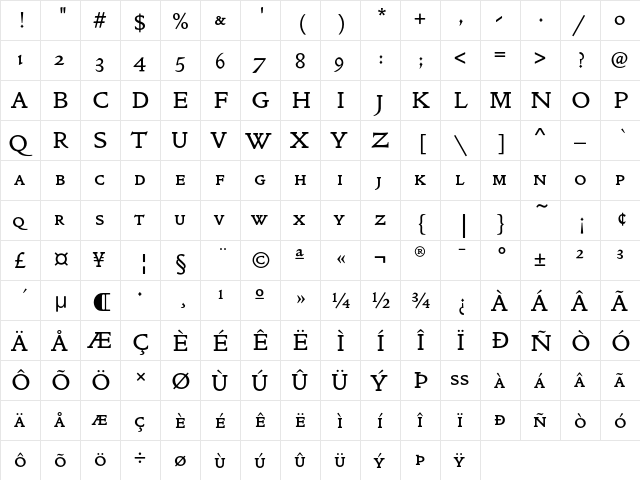
GoldenTypeSCEF Original
Design Context for GoldenTypeSCEF Typeface
GoldenTypeSCEF offers clean, dependable letterforms without strong stylistic allegiance, making it a practical choice for designers who need flexibility.
Pro Tip: Pair GoldenTypeSCEF with a font of contrasting weight or personality to build a more expressive typographic hierarchy.